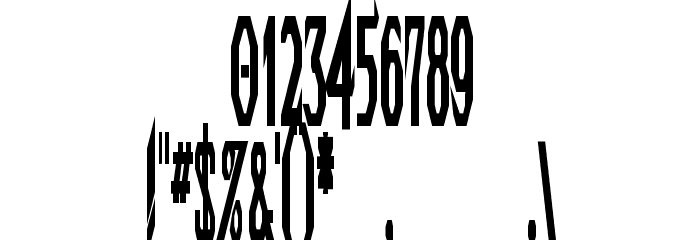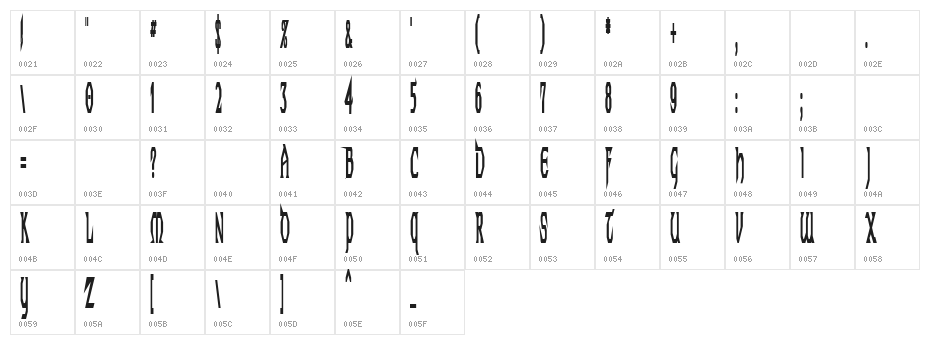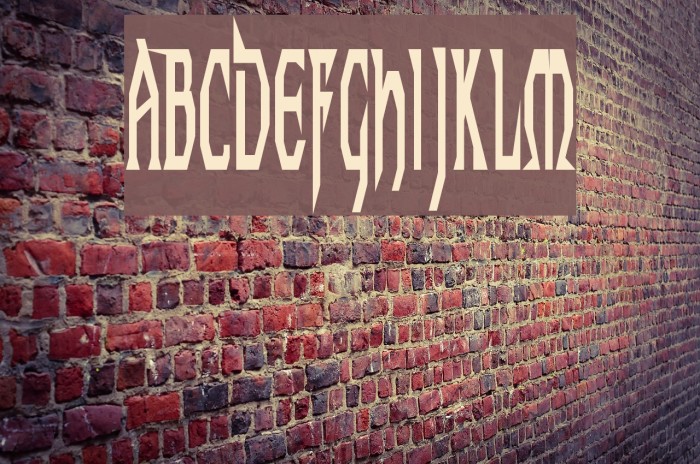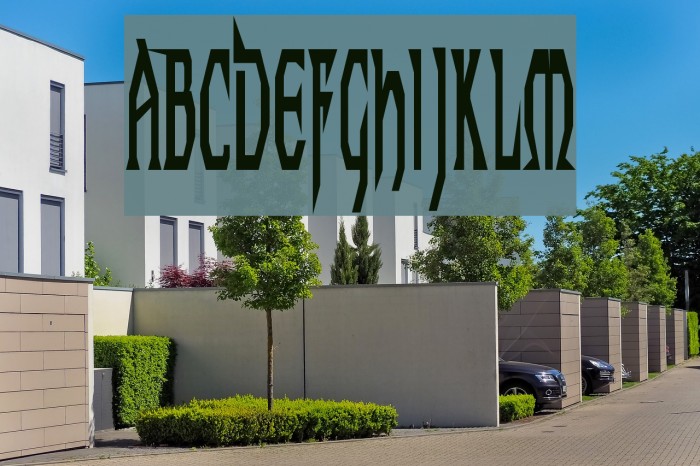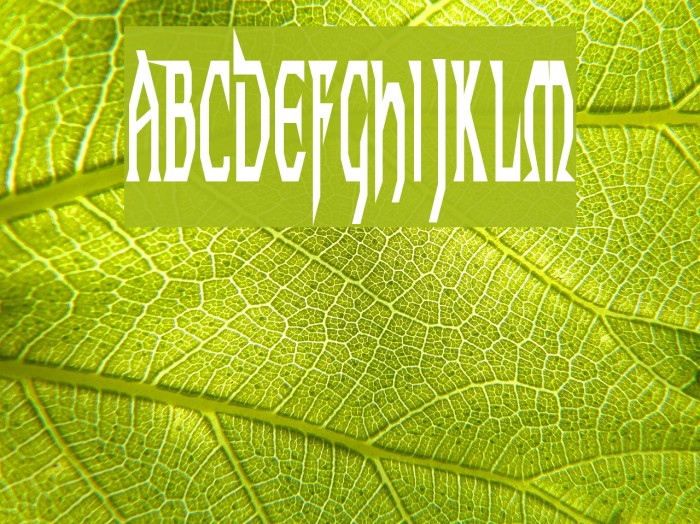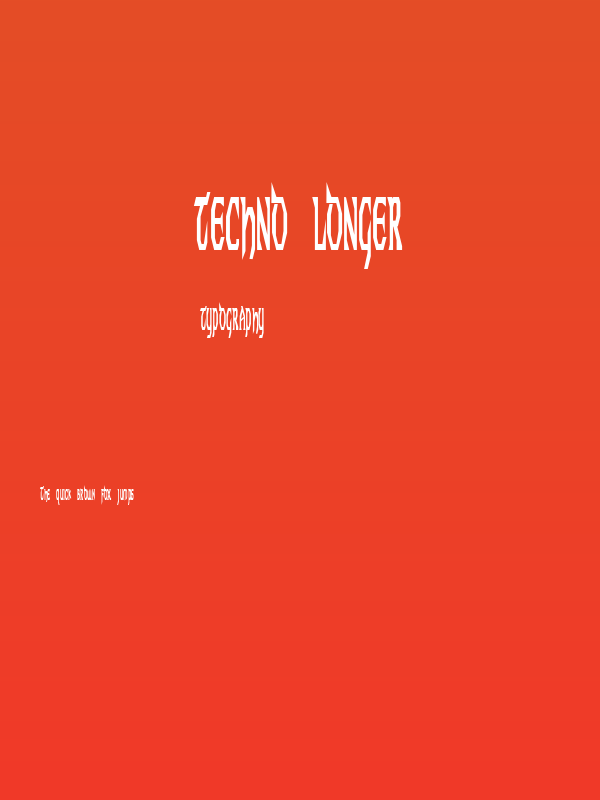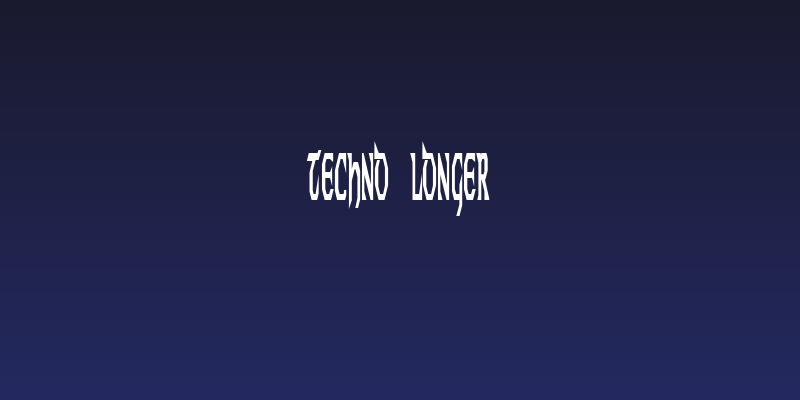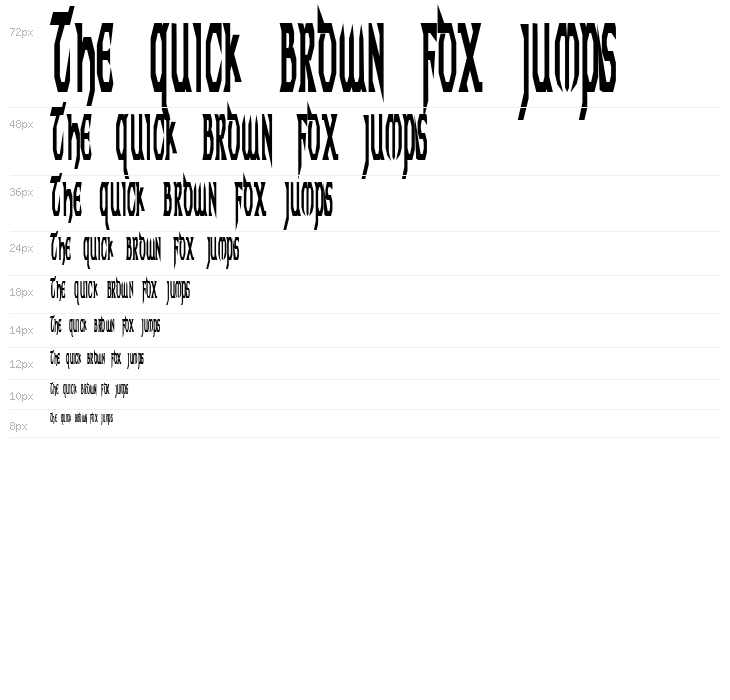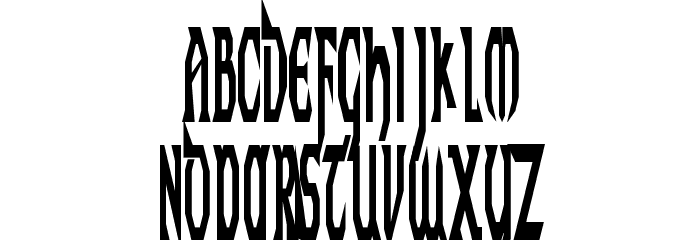
Techno Longer Font
Techno Longer Description
This font features a futuristic and elongated design, characterized by sharp angles and a distinct geometric style. The uppercase and lowercase letters maintain a consistent height, creating a uniform appearance. The numbers and special characters are designed to match the angular and elongated theme, providing a cohesive look across all characters. The font's unique style makes it stand out, with a bold presence that captures attention. Its modern and edgy design is suitable for projects that require a strong visual impact.
| Proposed Projects | Ideal for sci-fi themed designs, technology branding, video game titles, and modern posters. |